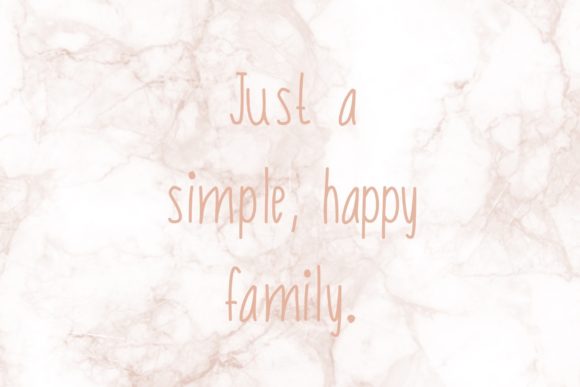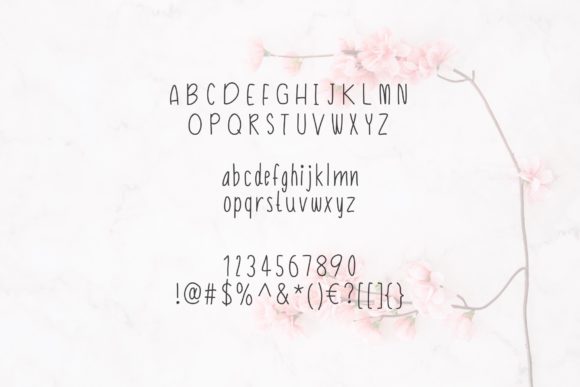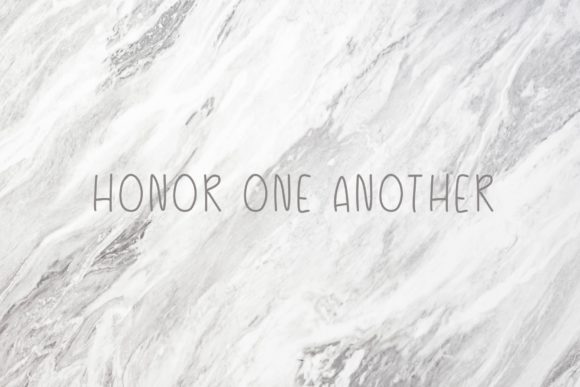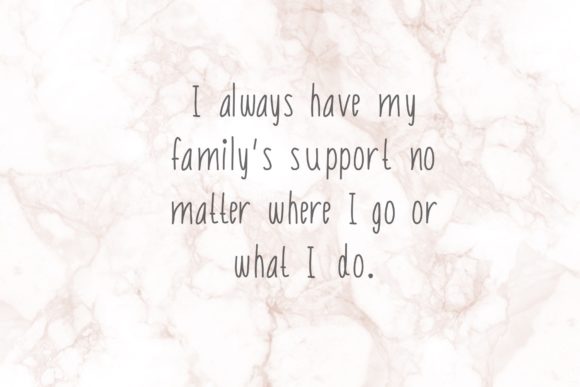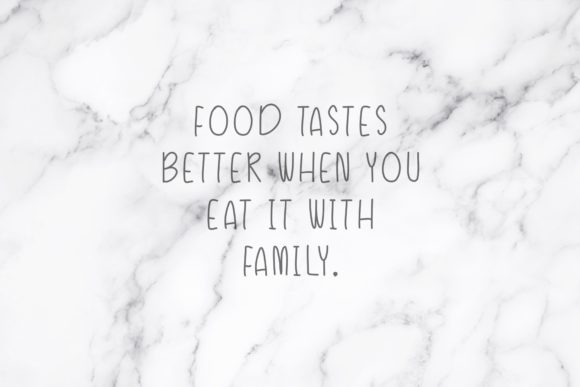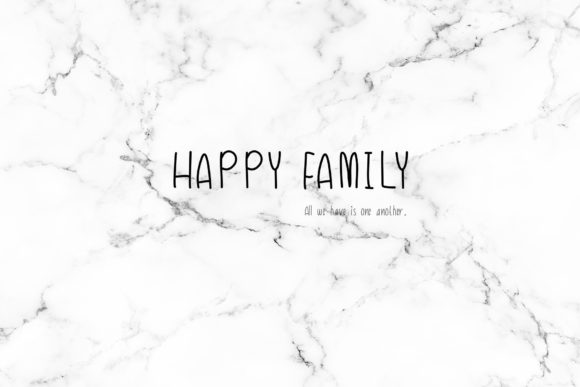
Introducing Happy Family Font: The Perfect Addition to Your Creative Projects
Are you a designer, crafter, or DIY enthusiast looking for a unique and playful font to elevate your creative projects? Look no further than Happy Family Font! This fun and quirky handwritten font is designed to bring a touch of personality and whimsy to your designs, making it perfect for a wide range of applications.
What Makes Happy Family Font So Special?
Happy Family Font is a beautifully crafted handwritten font that stands out for its neat and well-spaced lettering. Its fun and quirky vibe makes it an excellent choice for designers and crafters who want to add a personal touch to their work. Whether you’re creating logos, titles, labels, or packaging, Happy Family Font is sure to make your designs pop!
Endless Possibilities with Happy Family Font
The versatility of Happy Family Font is one of its most significant advantages. This font can be used in a wide range of creative projects, including:
- Logos: Add a playful touch to your brand’s logo and make it more memorable.
- Books and magazines: Use Happy Family Font for titles, headings, and even illustrations.
- Games: Create engaging and fun game titles, labels, and characters.
- Labels and name tags: Make your labels and name tags stand out with this unique font.
- Product packaging: Add a personal touch to your product packaging and make it more appealing.
- Cards and invitations: Create beautiful and eye-catching cards and invitations for special occasions.
- Mugs and pillows: Add a playful touch to your home decor and gifts.
Why Choose Happy Family Font?
There are many reasons why Happy Family Font is an excellent choice for designers and crafters. Here are a few:
- Unique and playful: Happy Family Font is a one-of-a-kind font that will make your designs stand out from the crowd.
- Easily readable: Despite its playful vibe, Happy Family Font is highly legible, making it perfect for titles, headings, and body text.
- Highly versatile: This font can be used in a wide range of creative projects, from digital designs to print materials.
Tips for Using Happy Family Font
To get the most out of Happy Family Font, here are a few tips:
- Experiment with colors: Happy Family Font looks great in a variety of colors, so don’t be afraid to experiment and find the perfect hue for your design.
- Mix and match: Combine Happy Family Font with other fonts to create a unique and eye-catching design.
- Play with sizes: Use Happy Family Font in different sizes to create visual interest and hierarchy in your design.
| Font Name | Happy Family Font |
| Author | NuchDIGITAL |
Happy Family Font is a fun and quirky handwritten font that is sure to bring a touch of personality and whimsy to your creative projects. With its neat and well-spaced lettering, this font is perfect for designers, crafters, and DIY enthusiasts who want to add a personal touch to their work. Whether you’re creating logos, titles, labels, or packaging, Happy Family Font is an excellent choice. So why wait? Download Happy Family Font today and start creating!